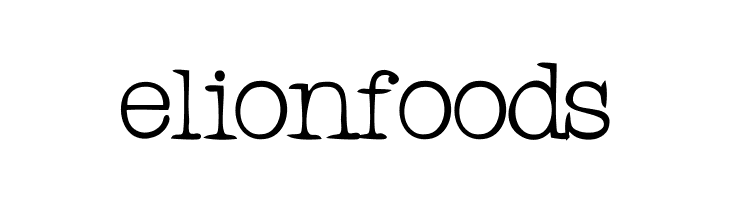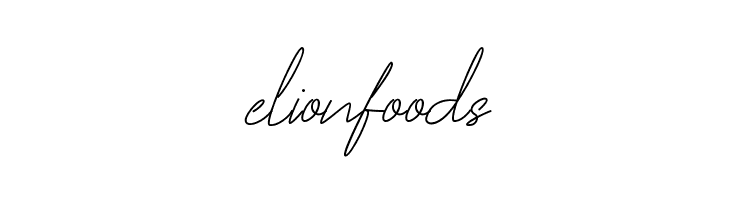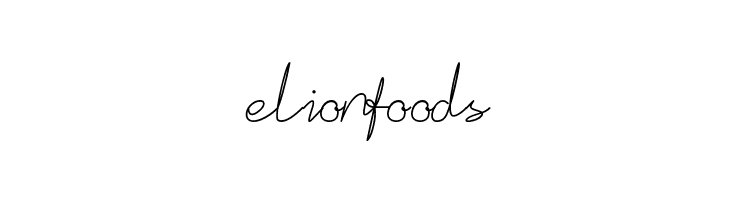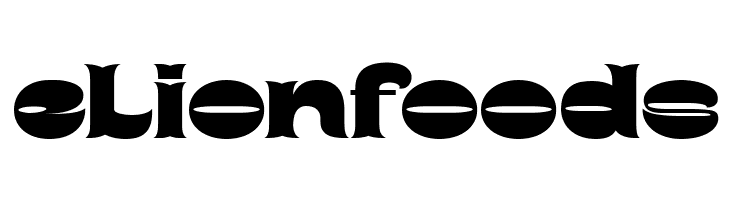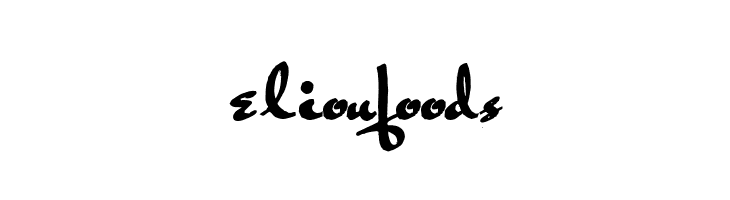
( Ronosa )
A bold, decorative font with a textured, grid-like pattern.
( Ronosa )
A bold, geometric font with a strong, industrial feel.
A lively and expressive script font with bold, flowing letterforms.
( Luc Mahler )
A sleek, modern font with elongated, narrow characters and minimal contrast.
( Fonts by Faras Dina )
A bold, playful font with a retro and whimsical design.
A graceful, handwritten script font with elegant curves and fluid connections.
A vintage, typewriter-style font with a classic, monospaced design.
A cursive, handwritten font with a fluid and elegant style.